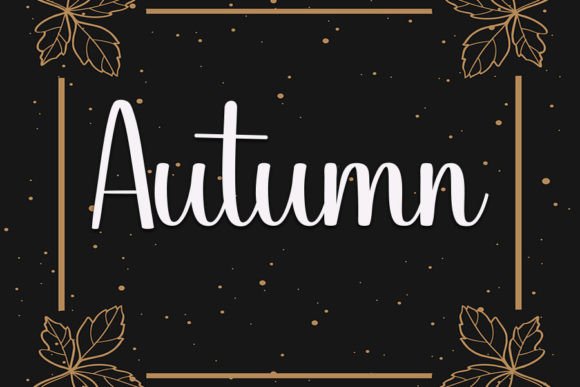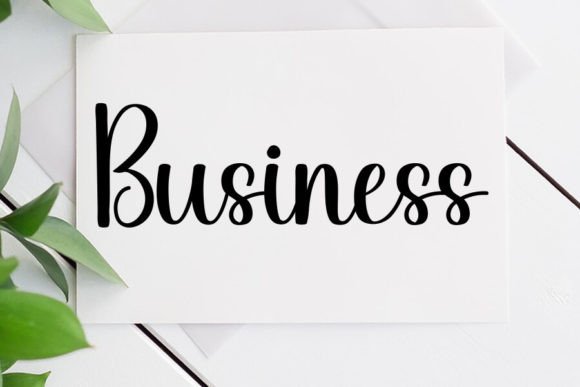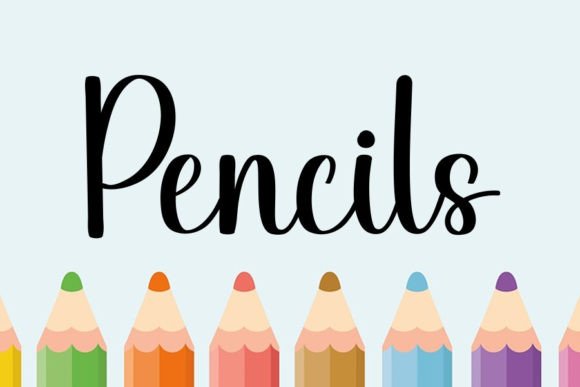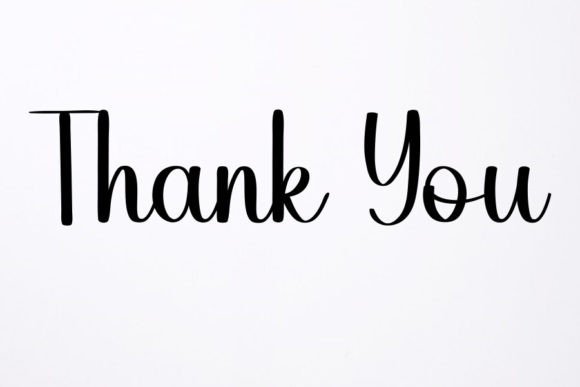
Introducing Daily Font: Elevate Your Designs with Elegance and Personality
In the world of typography, a font can make or break a design. For designers and crafters looking to add a touch of sophistication and charm to their projects, the Daily Font is an excellent choice. This modern and charming handwritten font is designed to exude elegance and personality, making it perfect for upscale invitations, personal branding, and chic editorial designs.
The Characteristics of Daily Font
Daily Font boasts graceful, flowing strokes that give it a refined and sophisticated character. Its unique and elegant design makes it stand out from other fonts, adding a touch of warmth and personality to any project. The font’s modern and charming aesthetic is perfect for designers looking to create visually stunning and engaging designs.
Uses of Daily Font
Daily Font is a versatile font that can be used in a variety of design projects. Some of the most popular uses of this font include:
- Upscale Invitations: Daily Font is perfect for creating elegant and sophisticated invitations for weddings, parties, and other special events.
- Personal Branding: The font’s unique and charming aesthetic makes it an excellent choice for personal branding, including logos, business cards, and letterheads.
- Chic Editorial Designs: Daily Font is ideal for use in editorial designs, such as magazines, blogs, and newspapers, where a touch of elegance and sophistication is desired.
Benefits of Using Daily Font
Using Daily Font in your design projects offers several benefits, including:
- Elegance and Sophistication: The font’s refined and sophisticated character adds a touch of elegance and sophistication to any design.
- Personality and Charm: Daily Font’s unique and charming aesthetic gives designs a personality and charm that sets them apart from others.
- Versatility: The font’s versatility makes it suitable for use in a variety of design projects, from invitations and branding to editorial designs.
Tips for Using Daily Font Effectively
To get the most out of Daily Font, here are some tips for using it effectively:
- Pair it with Other Fonts: Daily Font can be paired with other fonts to create a unique and visually appealing design.
- Use it in Headings and Titles: The font’s elegant and sophisticated character makes it perfect for use in headings and titles.
- Experiment with Colors: Daily Font can be used with a variety of colors to create a design that matches your brand’s aesthetic.
In conclusion, Daily Font is a modern and charming handwritten font that exudes elegance and personality. Its refined and sophisticated character makes it perfect for upscale invitations, personal branding, and chic editorial designs. With its versatility, elegance, and charm, Daily Font is an excellent choice for designers and crafters looking to elevate their projects and create visually stunning designs.